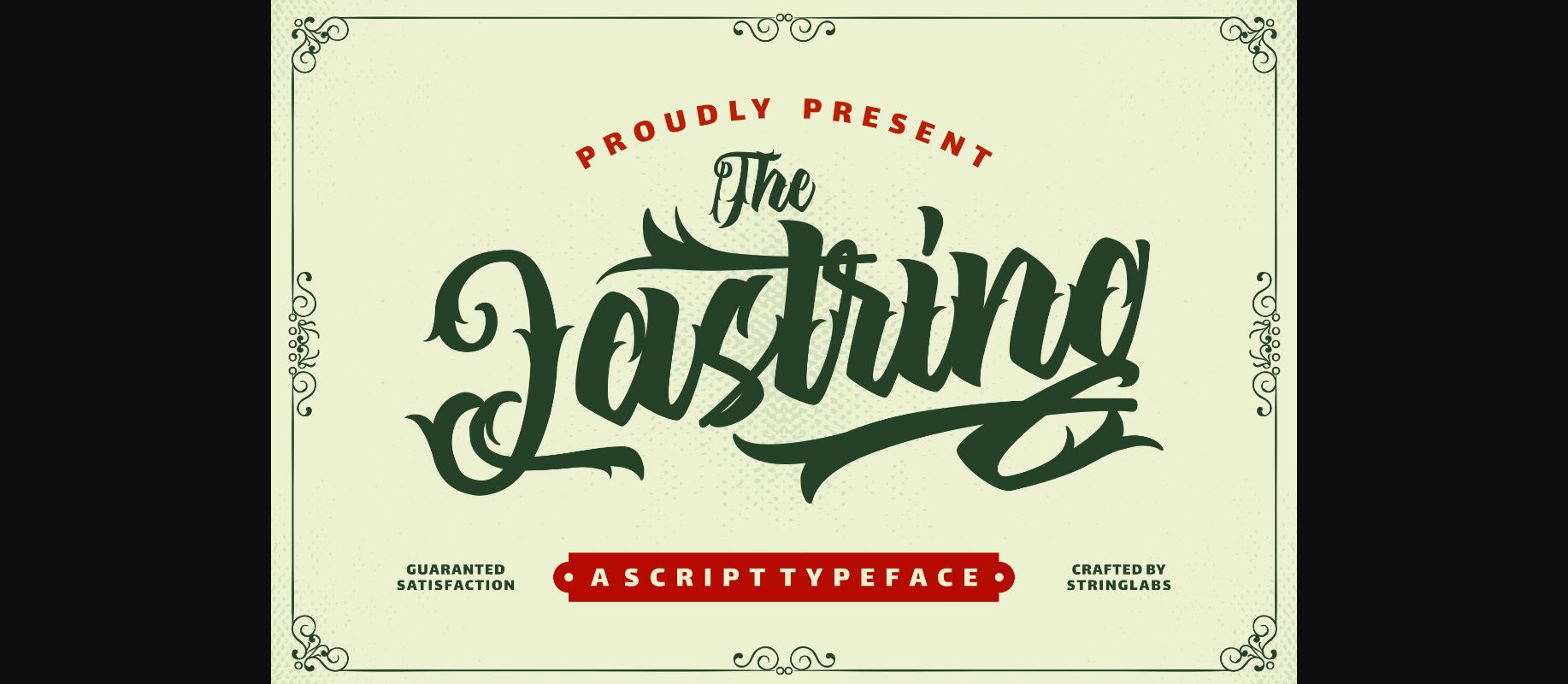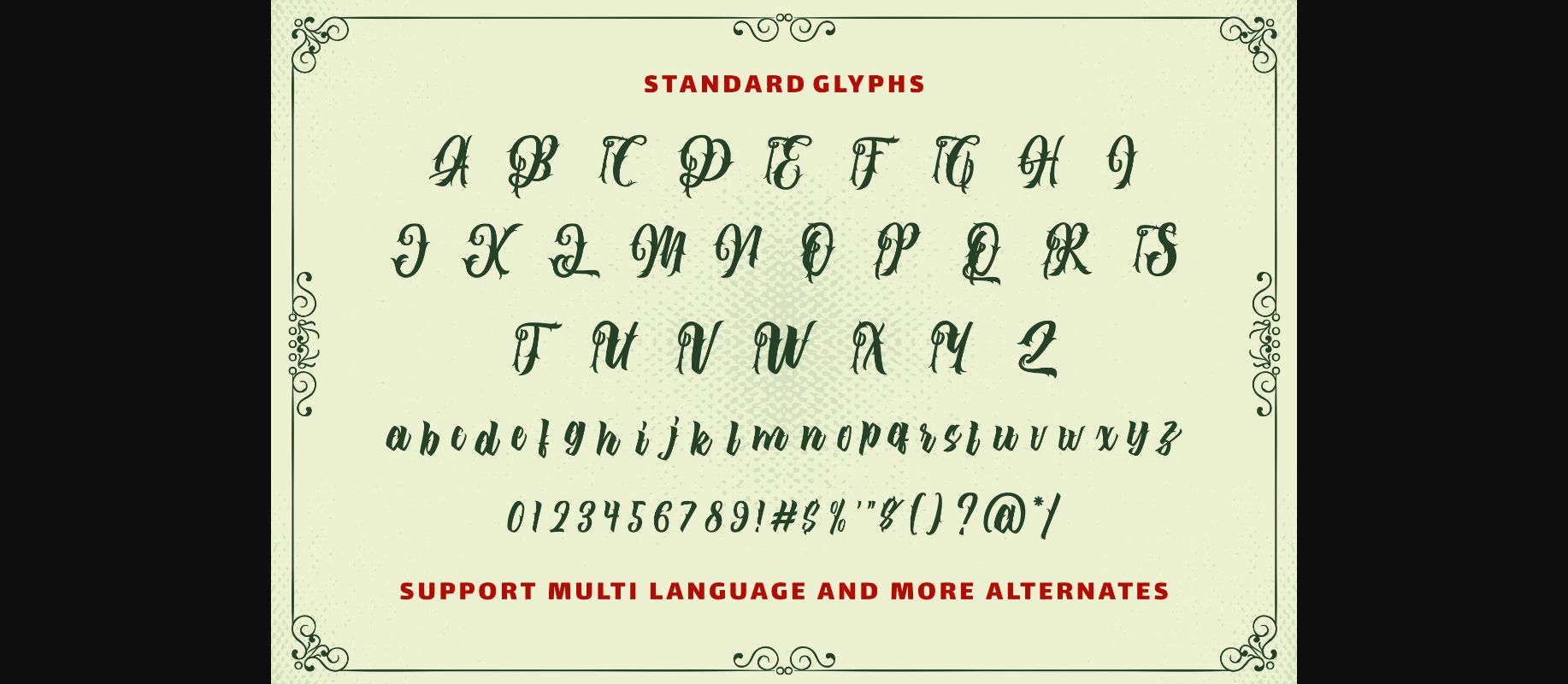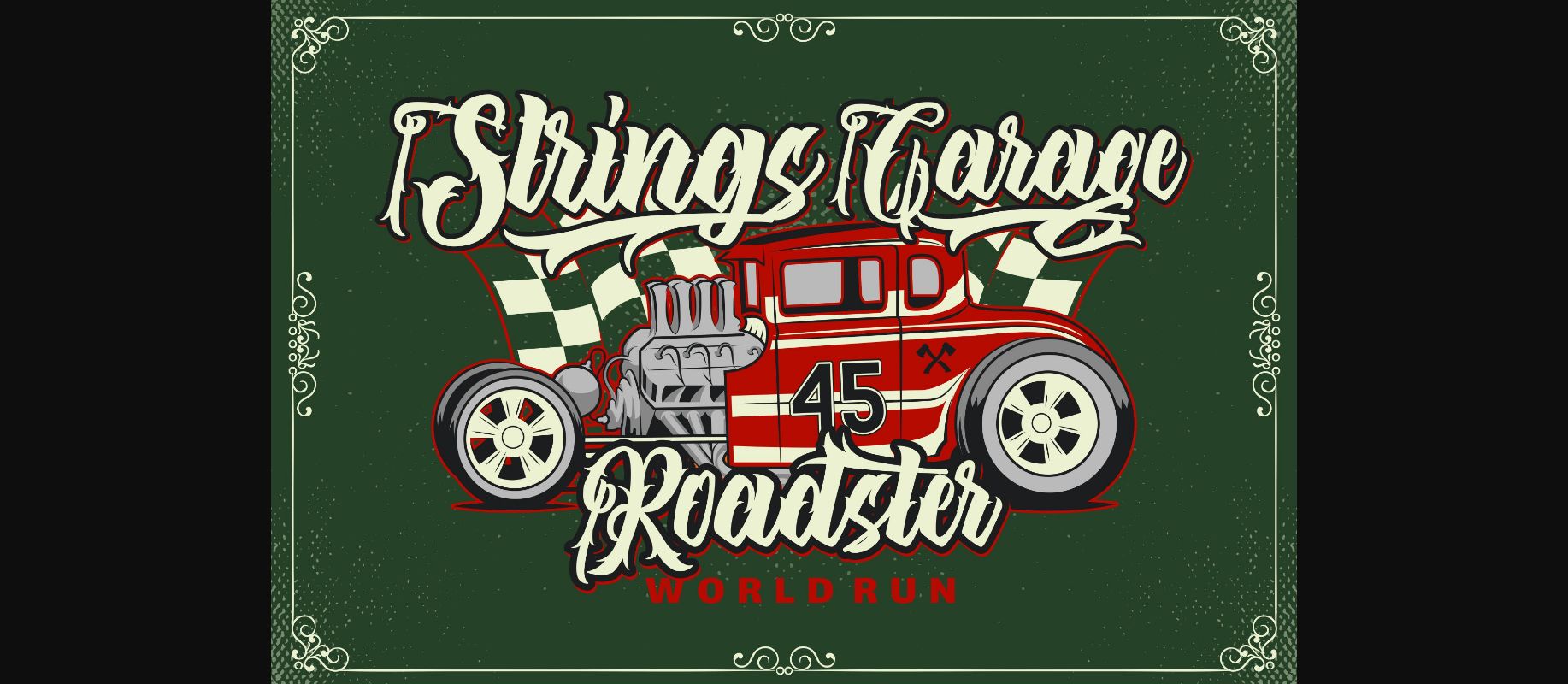
About The Lastring Font
The Lastring is a decorative font. It is perfect for tattoos design and has a gothic and vintage style that will turn any project in a piece of art!